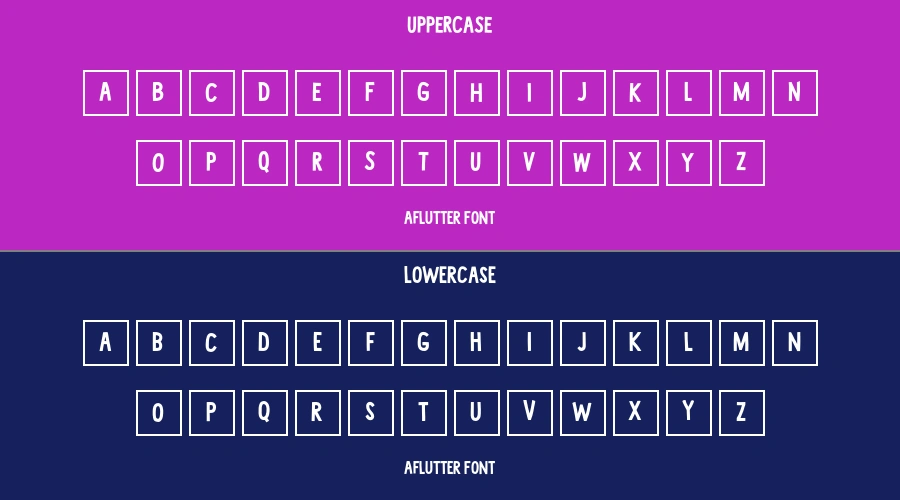
About Aflutter Font
When typographic excellence matters most, Aflutter Font delivers through its thoughtful blend of ball terminals and aesthetic balance. Specially crafted for advertising campaigns, it offers the longevity and design innovation required for sophisticated design work. Every detail serves a purpose.
The character set showcases thoughtful details like structural clarity alongside functional proportional figures. This proves especially valuable in logos, where consistency directly influences results. Particular attention was paid to character width and user perception during development.